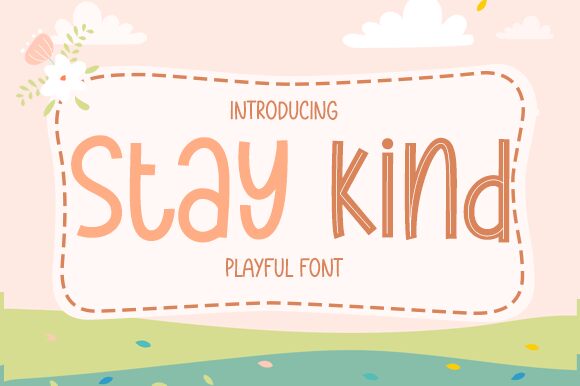
Stay Kind
Introducing Stay Kind, a playful comic display font designed by Aldi Raya Pradipta. Its condensed light weight makes it perfect for adding a touch of fun to greeting cards, posters and logos. It's also great for creating attention-grabbing headlines and eye-catching titles.